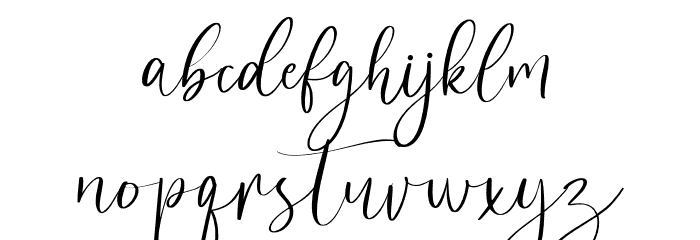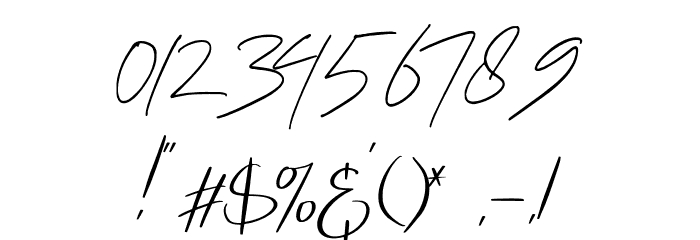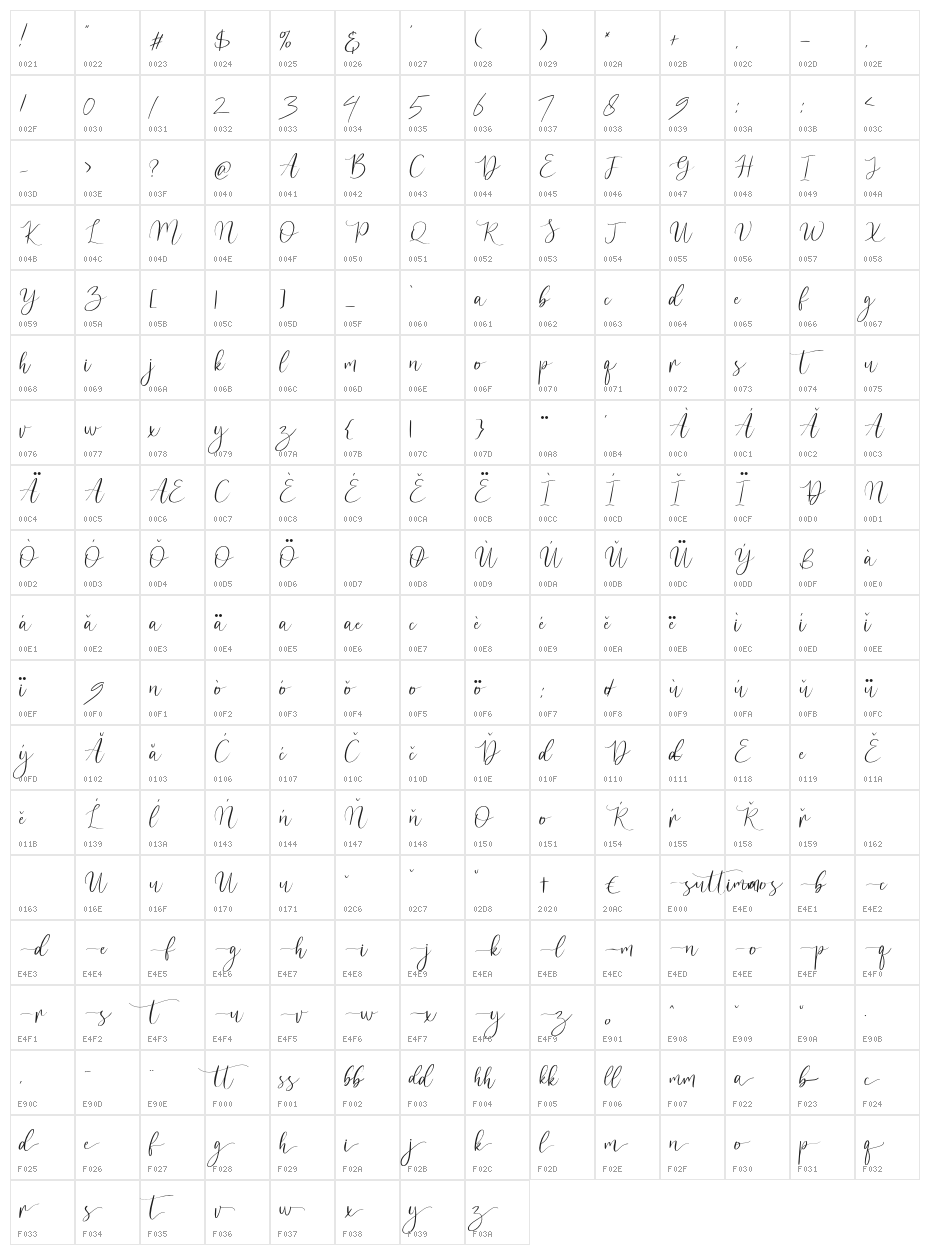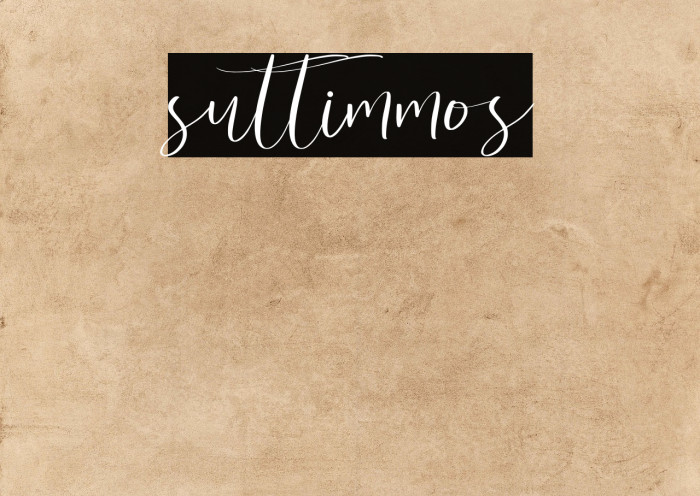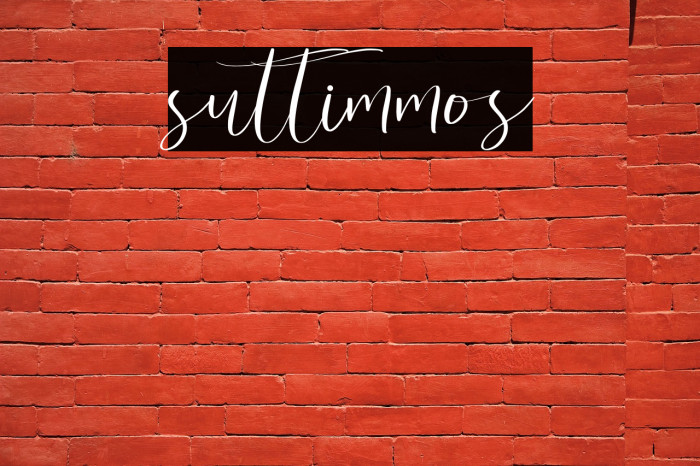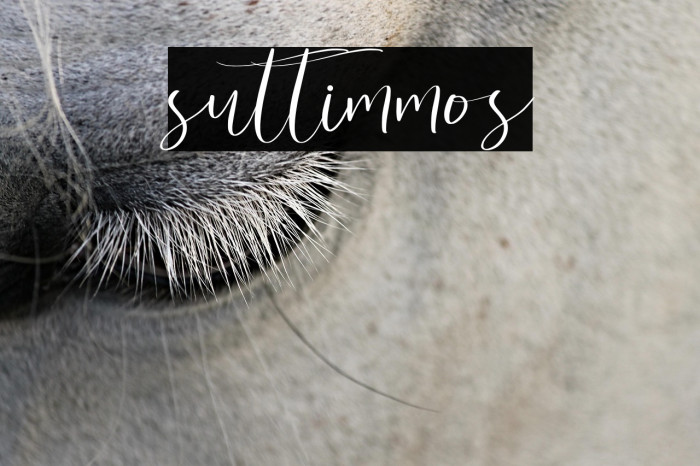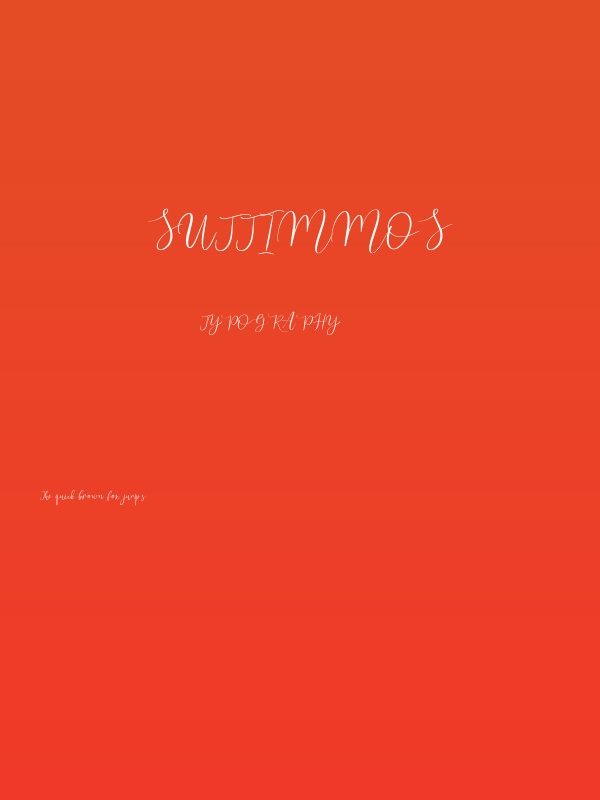
suttimmos Font
This elegant script font features flowing, interconnected letters that exude a sense of sophistication and grace. The uppercase characters are tall and slightly slanted, with delicate loops and flourishes that add a touch of whimsy. The lowercase letters maintain a consistent style, with smooth curves and a fluid motion that enhances readability. Numbers and special characters are designed to complement the overall aesthetic, maintaining the same graceful lines and artistic flair. This font is perfect for projects that require a personal, handwritten touch, such as invitations, greeting cards, and branding materials.
An elegant script font with flowing, interconnected letters and artistic flair.
- Proposed Projects: Ideal for wedding invitations, greeting cards, personal branding, and elegant stationery.
- Overall Style: Elegant, Artistic
- Use Case: Headlines, Invitations, Greeting Cards